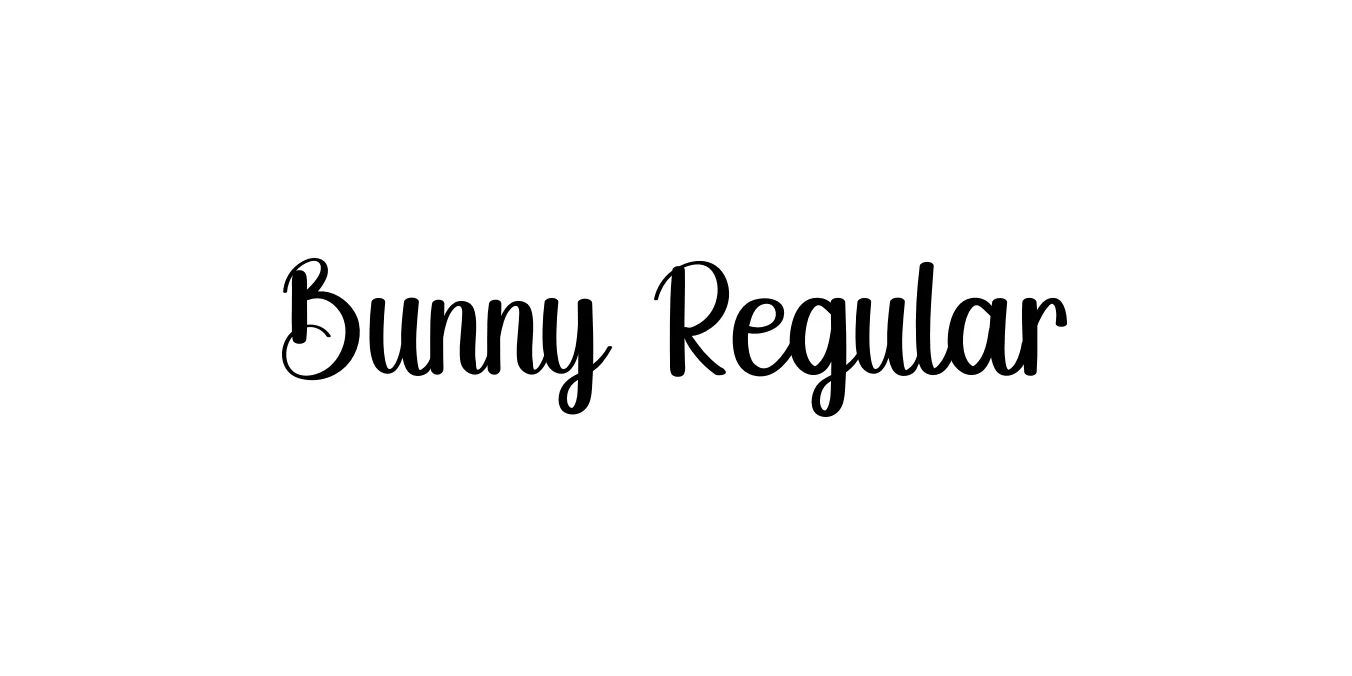
Bunny Regular
Designed by Nisrine
| Category | Display / Rounded |
Bunny Regular is a delightful and playful display font designed to bring a sense of joy and whimsy to any creative project. Characterized by its rounded terminals and soft curves, this typeface excels in capturing a friendly and approachable aesthetic, making it a favorite for children's branding, seasonal spring designs, and festive holiday layouts.
Originally crafted for versatility in the crafting world, this font works exceptionally well for greeting cards, scrapbooking, and personalized DIY projects. Its legibility remains high despite its decorative nature, allowing it to transition seamlessly from digital screens to physical print media, ensuring your message is both legible and visually engaging.
Bunny Regular Best Uses
Ideal for storybook titles, toy packaging, and playful educational materials.
Adds a soft, approachable touch to invitations, birthday cards, and stationary.
Highly compatible with vinyl cutting machines for DIY scrapbooking and home decor.
Creates a friendly atmosphere for parenting blogs or lifestyle websites.